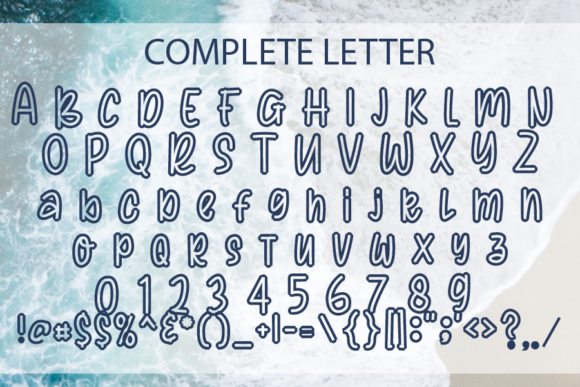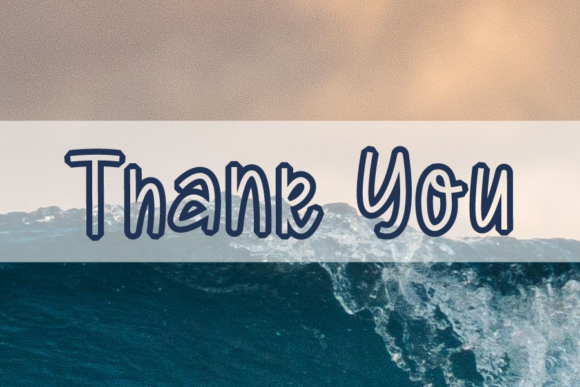
Bubble Wap Font: The Ultimate Display Font for Creative Projects
Are you a designer or crafter looking for a unique and eye-catching font to elevate your creative projects? Look no further than the Bubble Wap Font! This bold, outlined, and bouncy display font is perfect for making a statement and adding a touch of personality to your designs.
What is Bubble Wap Font?
Bubble Wap Font is a carefully crafted display font that features bold, outlined letters with a bouncy and playful feel. Its unique design makes it stand out from other fonts, making it perfect for grabbing attention and creating a lasting impression. The font is versatile and can be used for a wide range of purposes, including logos, wedding invitations, headings, t-shirts, letterhead, signage, labels, news, posters, badges, and more.
Key Features of Bubble Wap Font
- Bold and Outlined Design: The Bubble Wap Font features a bold and outlined design that makes it perfect for creating eye-catching headlines and titles.
- Bouncy and Playful Feel: The font’s bouncy and playful feel adds a touch of personality to your designs, making them more engaging and fun.
- Versatile: The Bubble Wap Font is versatile and can be used for a wide range of purposes, from logos and wedding invitations to headings and posters.
- Easy to Read: Despite its bold and outlined design, the Bubble Wap Font is easy to read, making it perfect for use in body text and captions.
Uses of Bubble Wap Font
The Bubble Wap Font is perfect for a wide range of creative projects, including:
- Logos: Create a bold and eye-catching logo for your business or brand with the Bubble Wap Font.
- Wedding Invitations: Add a touch of personality to your wedding invitations with the Bubble Wap Font.
- Headings and Titles: Use the Bubble Wap Font to create bold and eye-catching headings and titles for your blog posts, articles, and more.
- T-Shirts and Merchandise: Create custom t-shirts and merchandise with the Bubble Wap Font.
- Signage and Labels: Use the Bubble Wap Font to create eye-catching signage and labels for your business or event.
- Posters and Flyers: Create bold and eye-catching posters and flyers with the Bubble Wap Font.
- Badges and Awards: Use the Bubble Wap Font to create custom badges and awards for your business or event.
Why Choose Bubble Wap Font?
There are many reasons why you should choose the Bubble Wap Font for your creative projects. Here are a few:
- Unique Design: The Bubble Wap Font features a unique and eye-catching design that will make your projects stand out.
- Versatility: The font is versatile and can be used for a wide range of purposes.
- High-Quality: The font is high-quality and features a clear and crisp design.
In conclusion, the Bubble Wap Font is a bold, outlined, and bouncy display font that is perfect for making a statement and adding a touch of personality to your creative projects. Its unique design, versatility, and ease of use make it a great choice for designers and crafters. Whether you’re looking to create a logo, wedding invitation, heading, or poster, the Bubble Wap Font is a great choice.